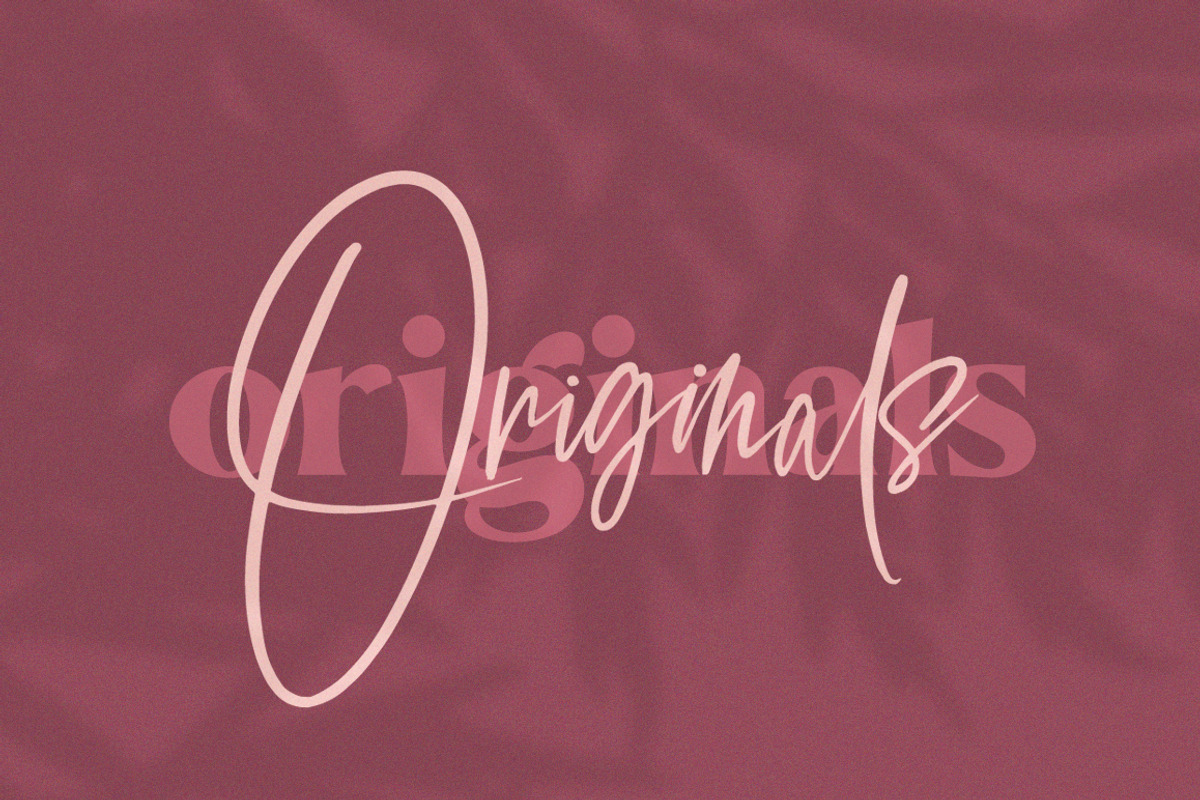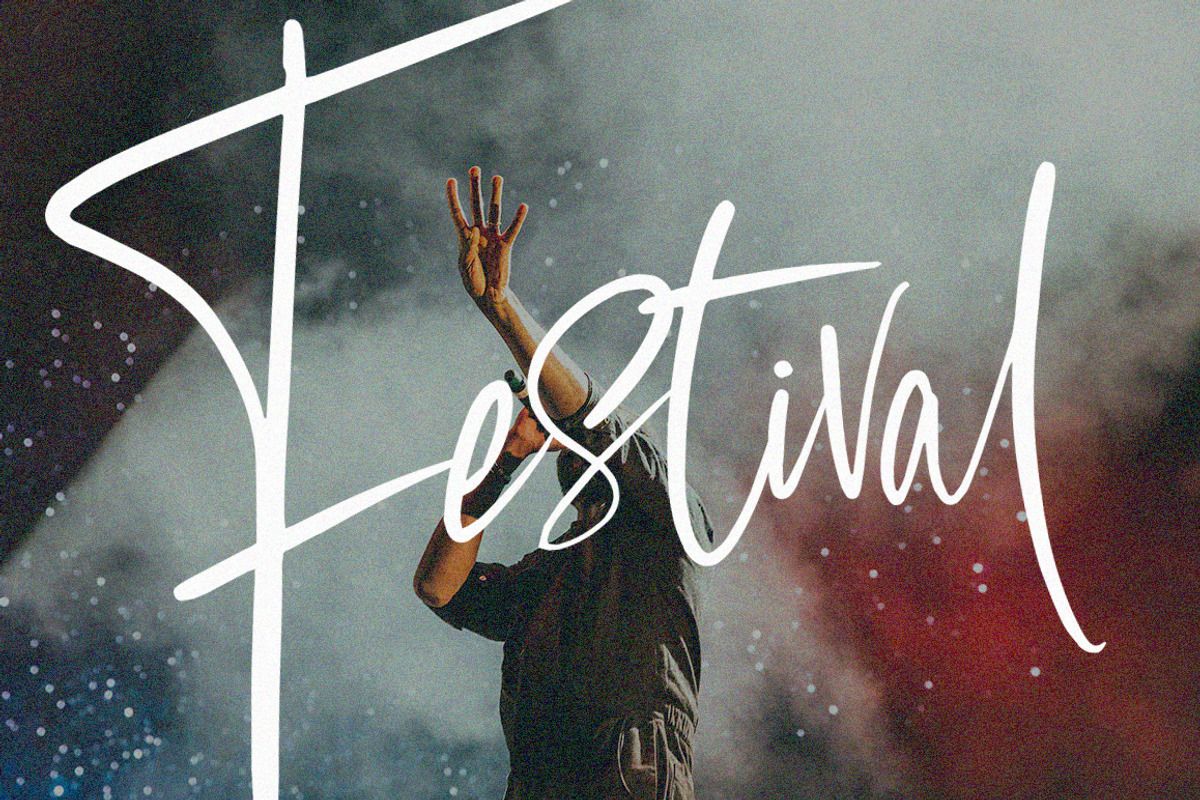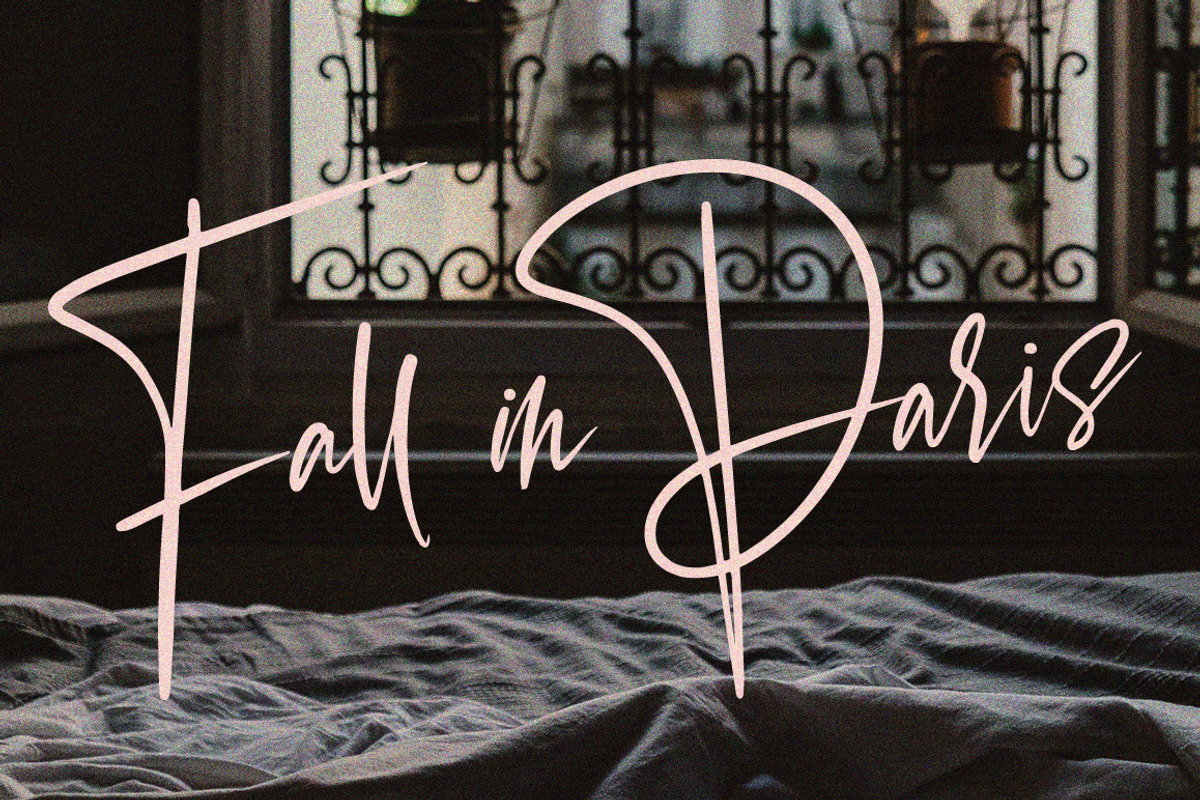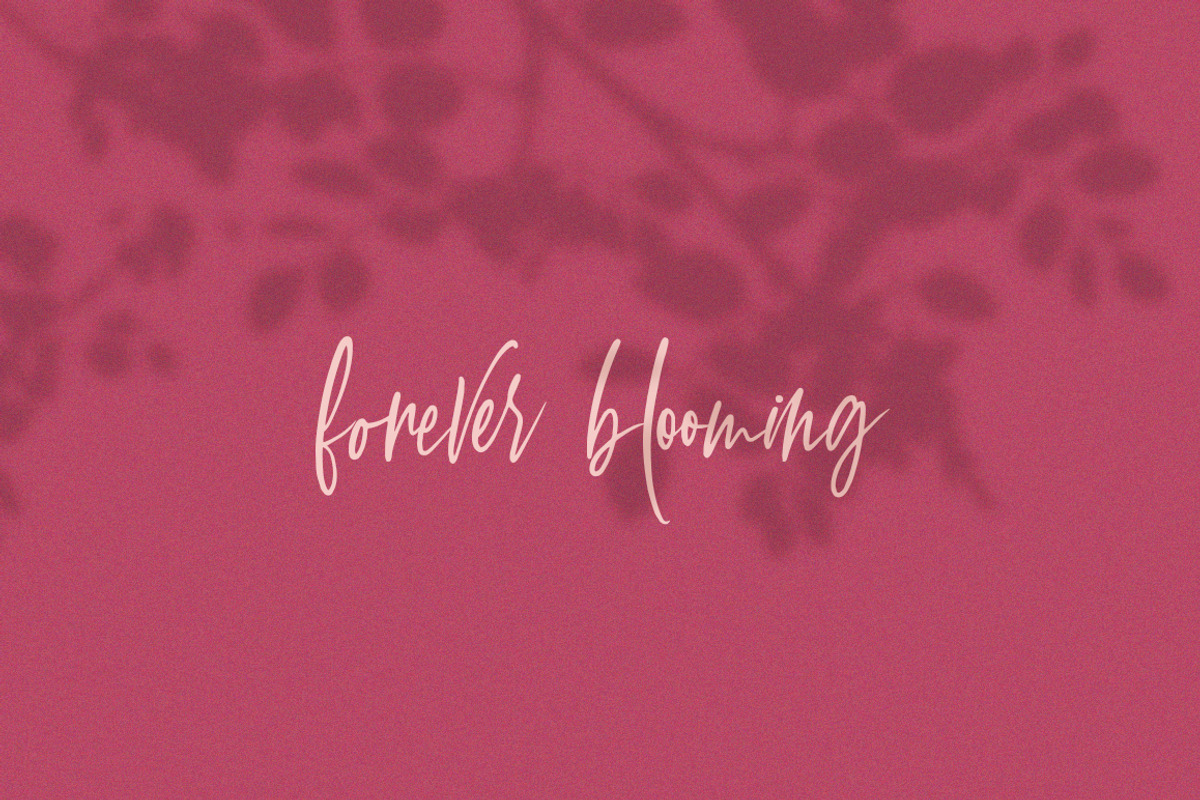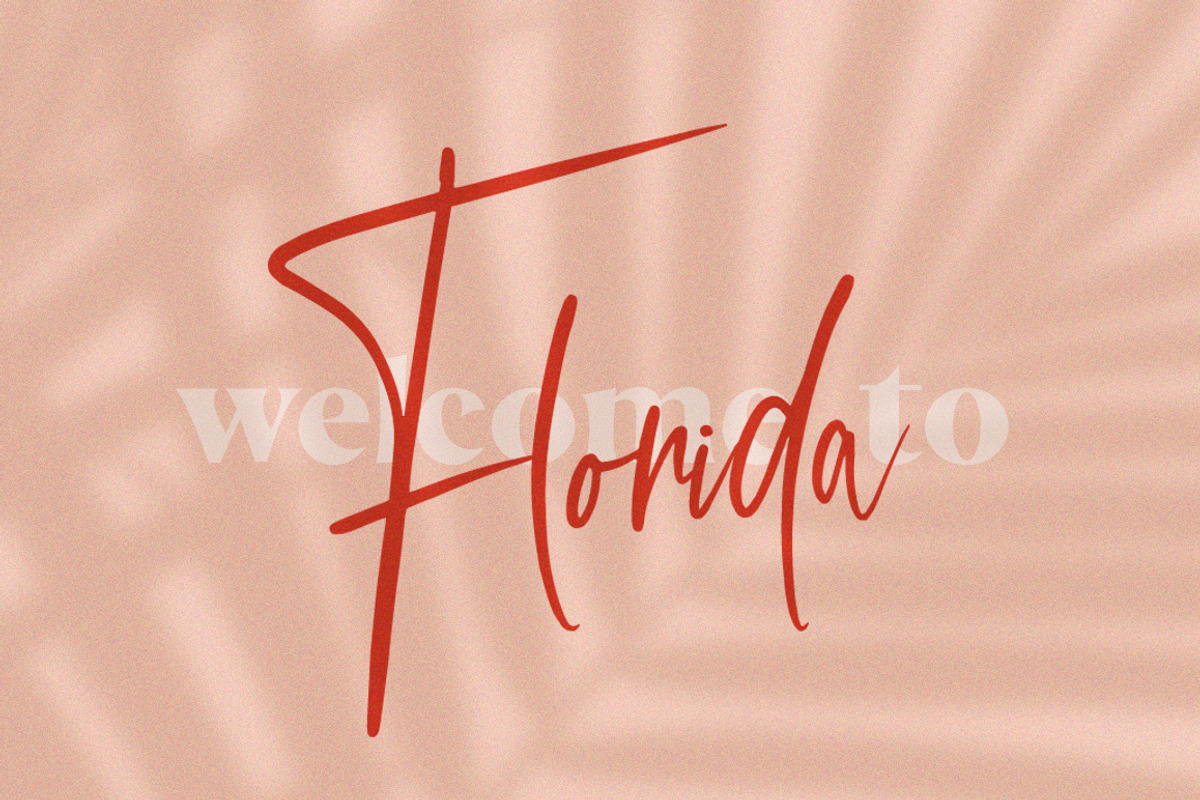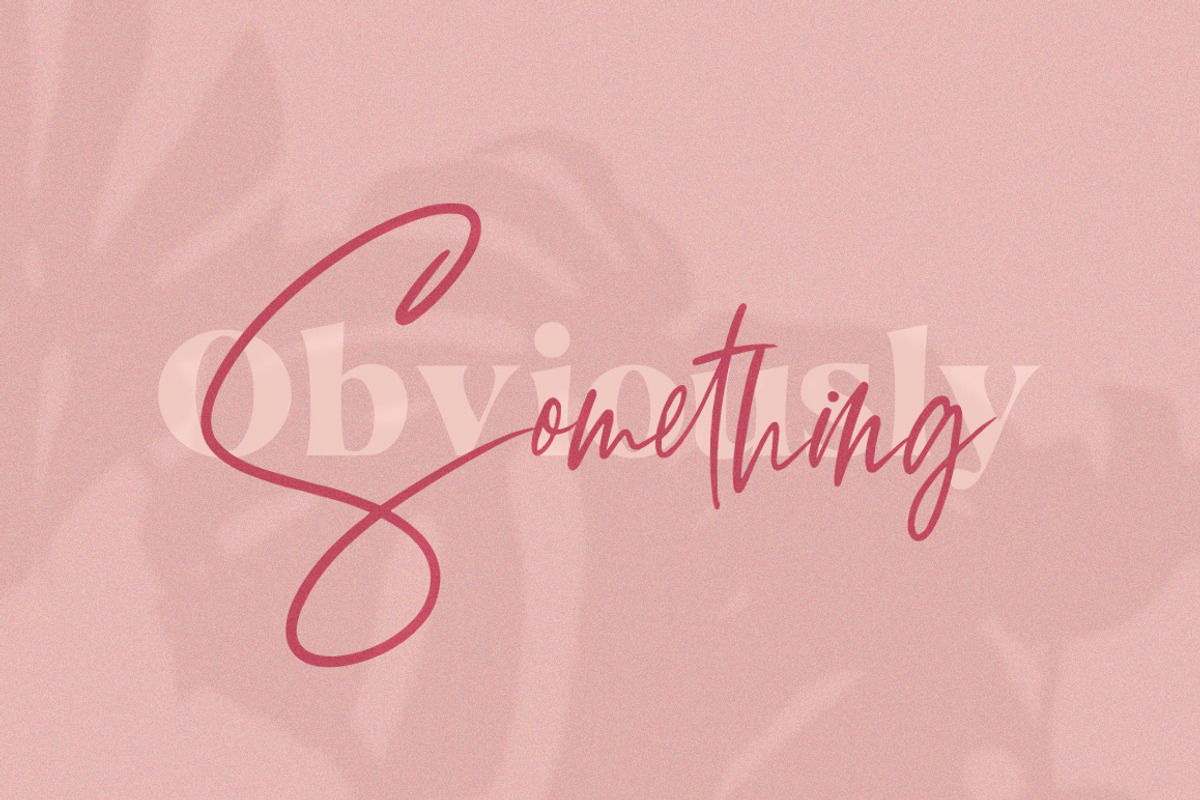
Sullington Script Font
Sullington Script is a gorgeous new script font that includes a wonderful array of characters and some seriously stylish ligatures! Make sure you grab this beauty now and use it in your new work and don't forget that this stunner pairs well with serifs too!
Why Sullington Script Font is worth a look
Sullington Script Font by Salt & Pepper Designs fits naturally into Branding, posters, packaging, typography.